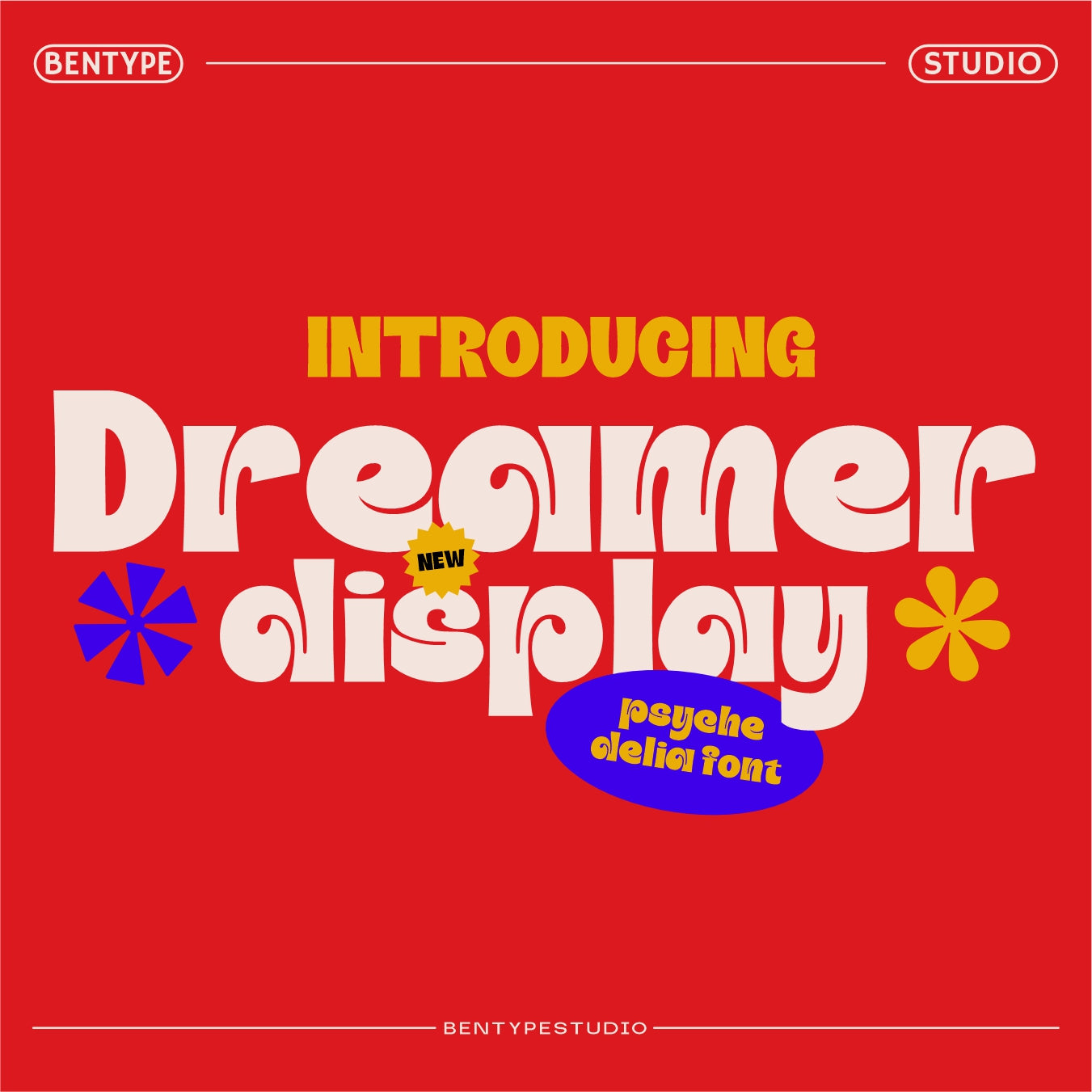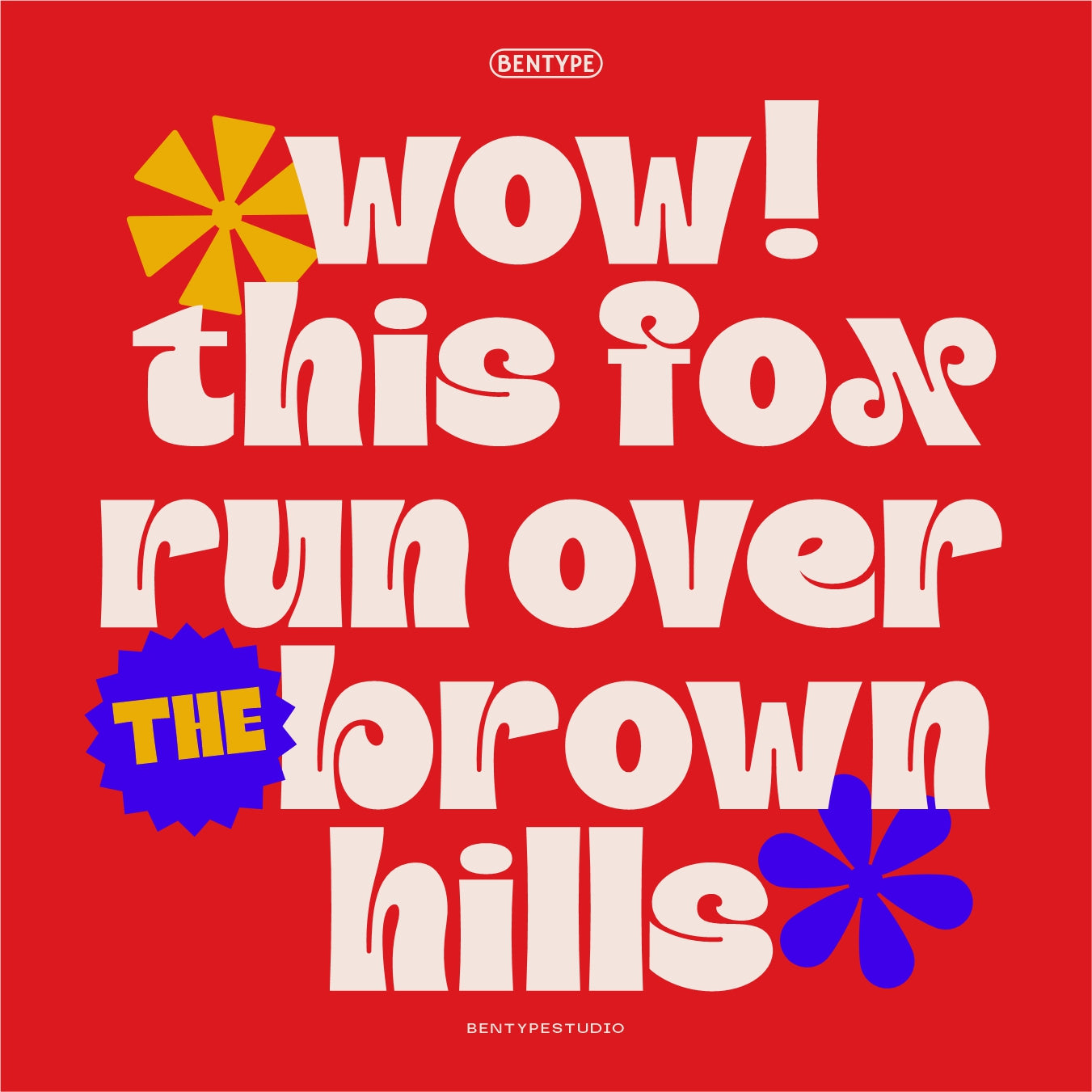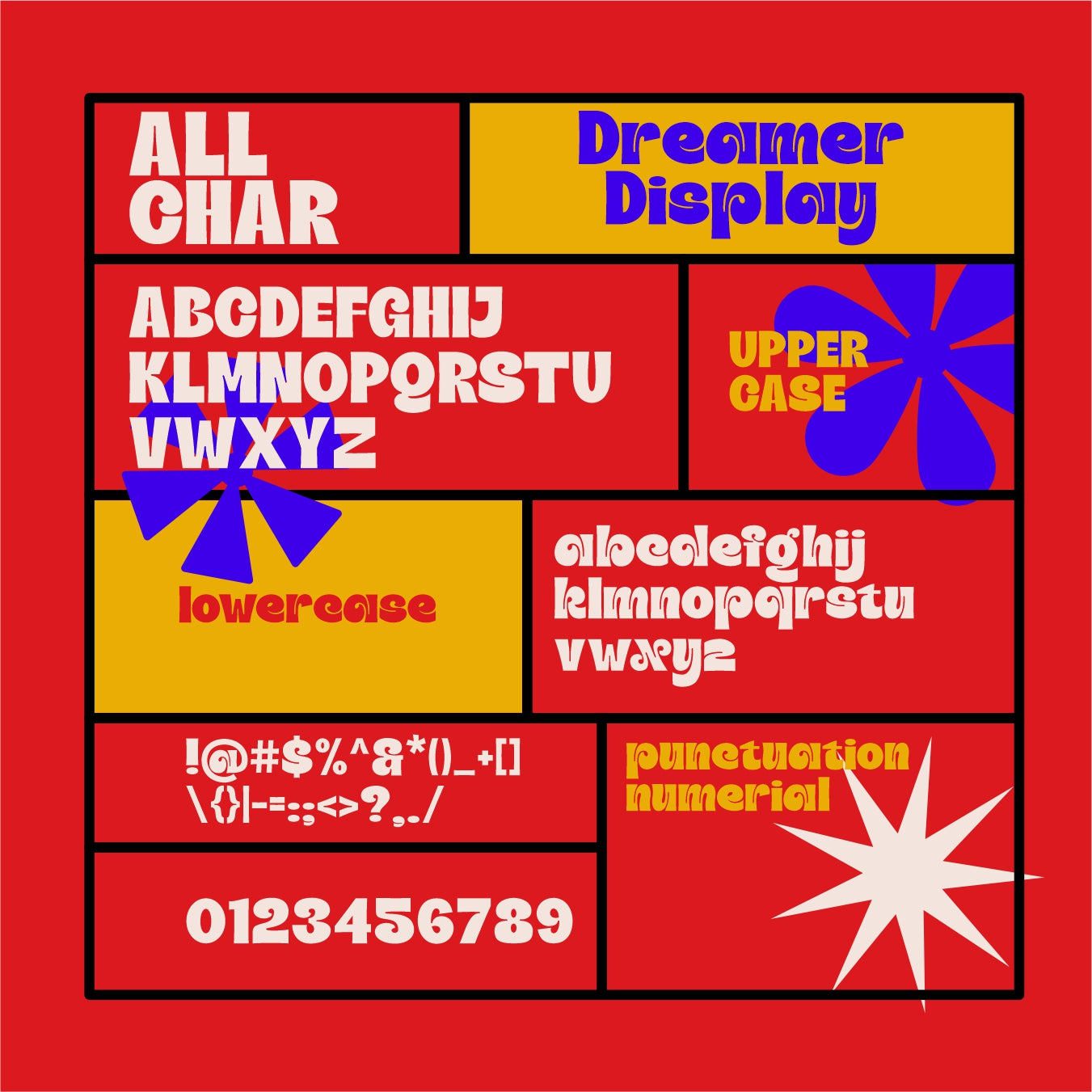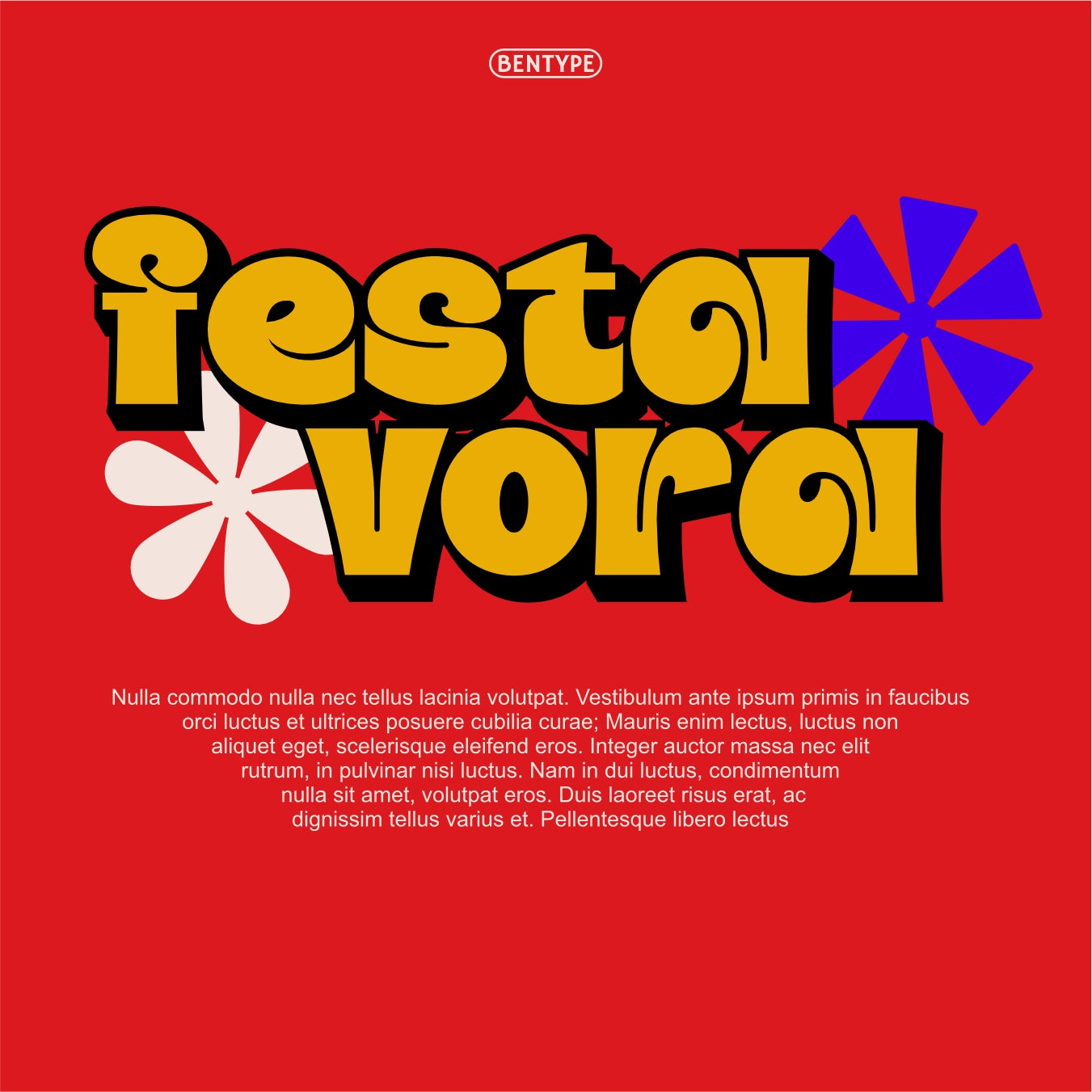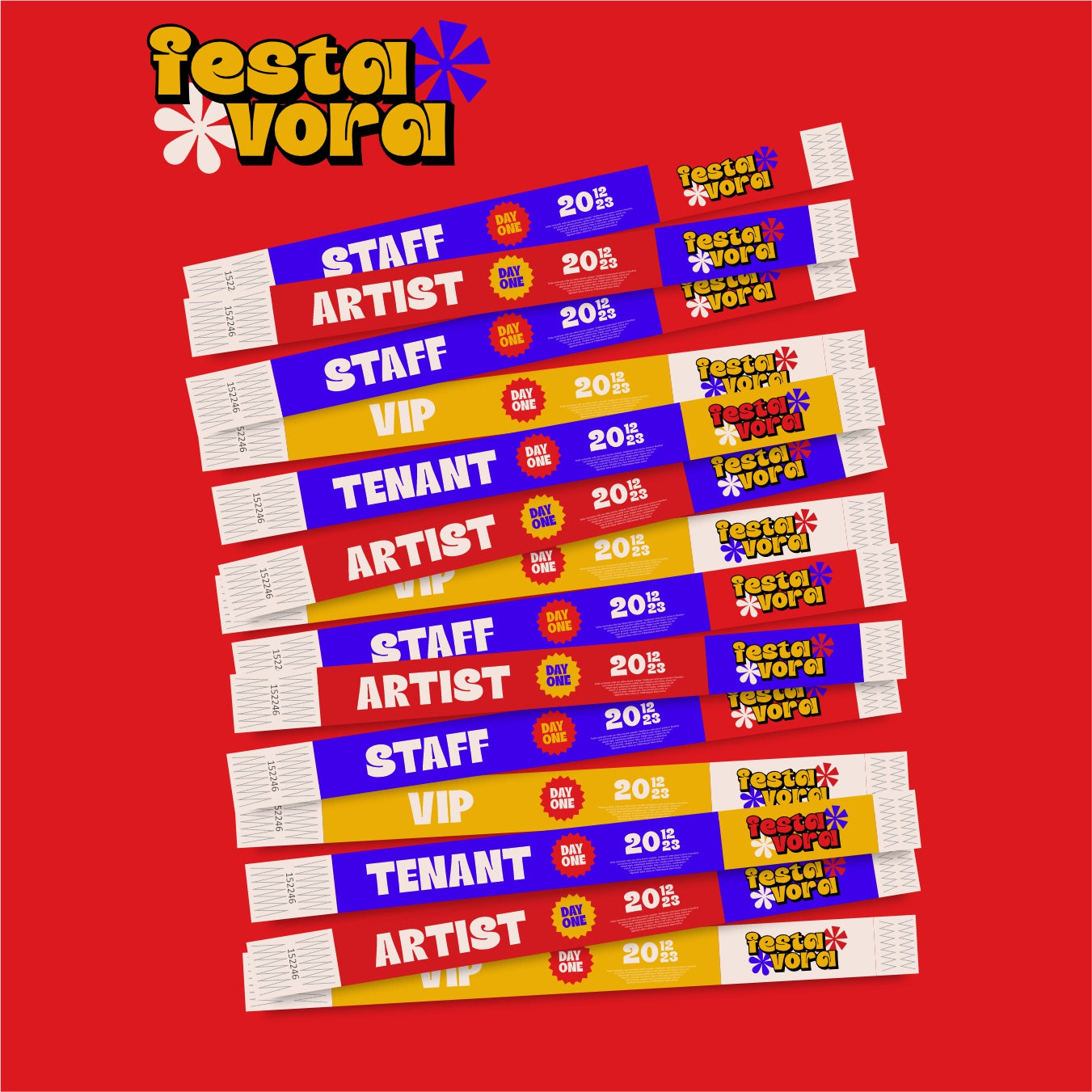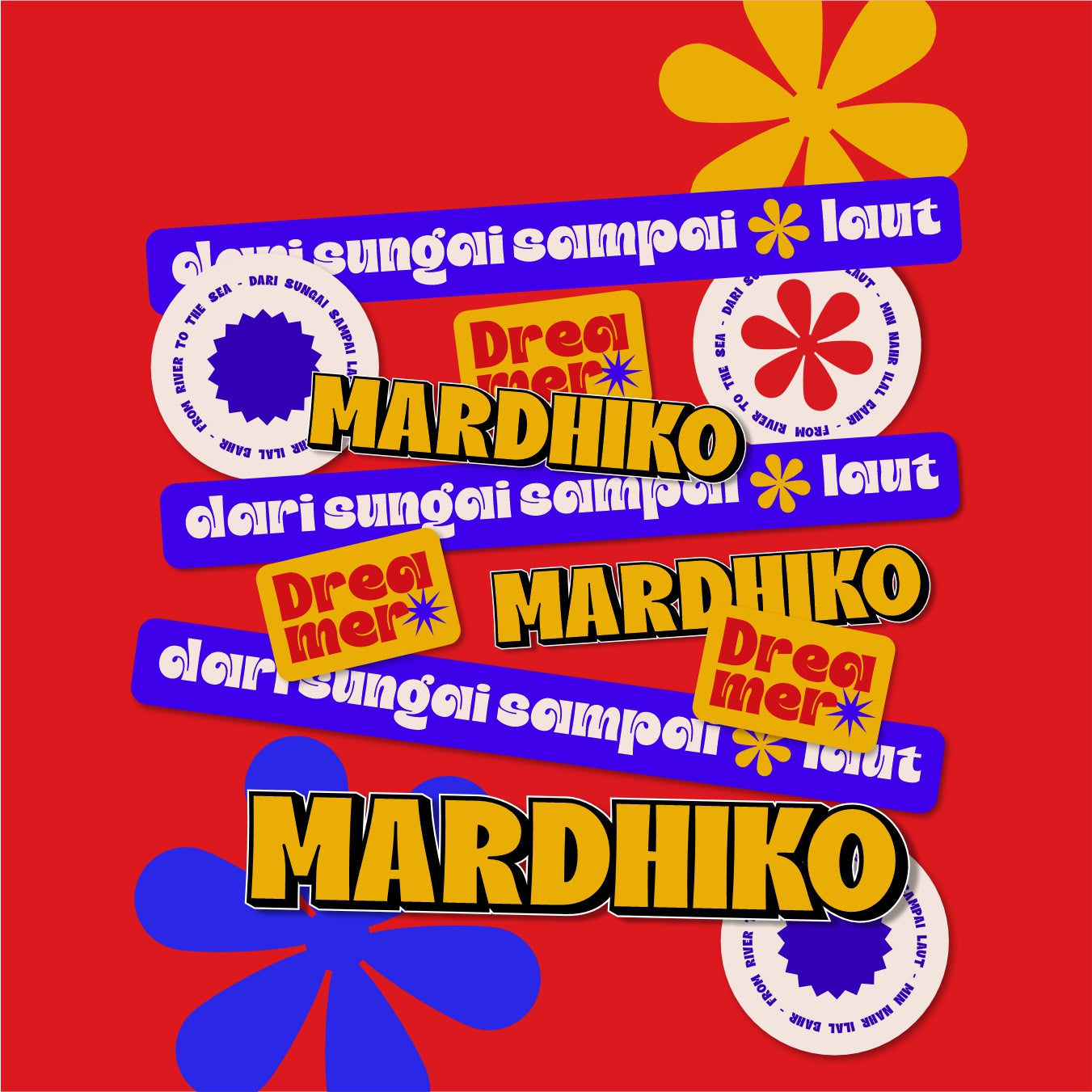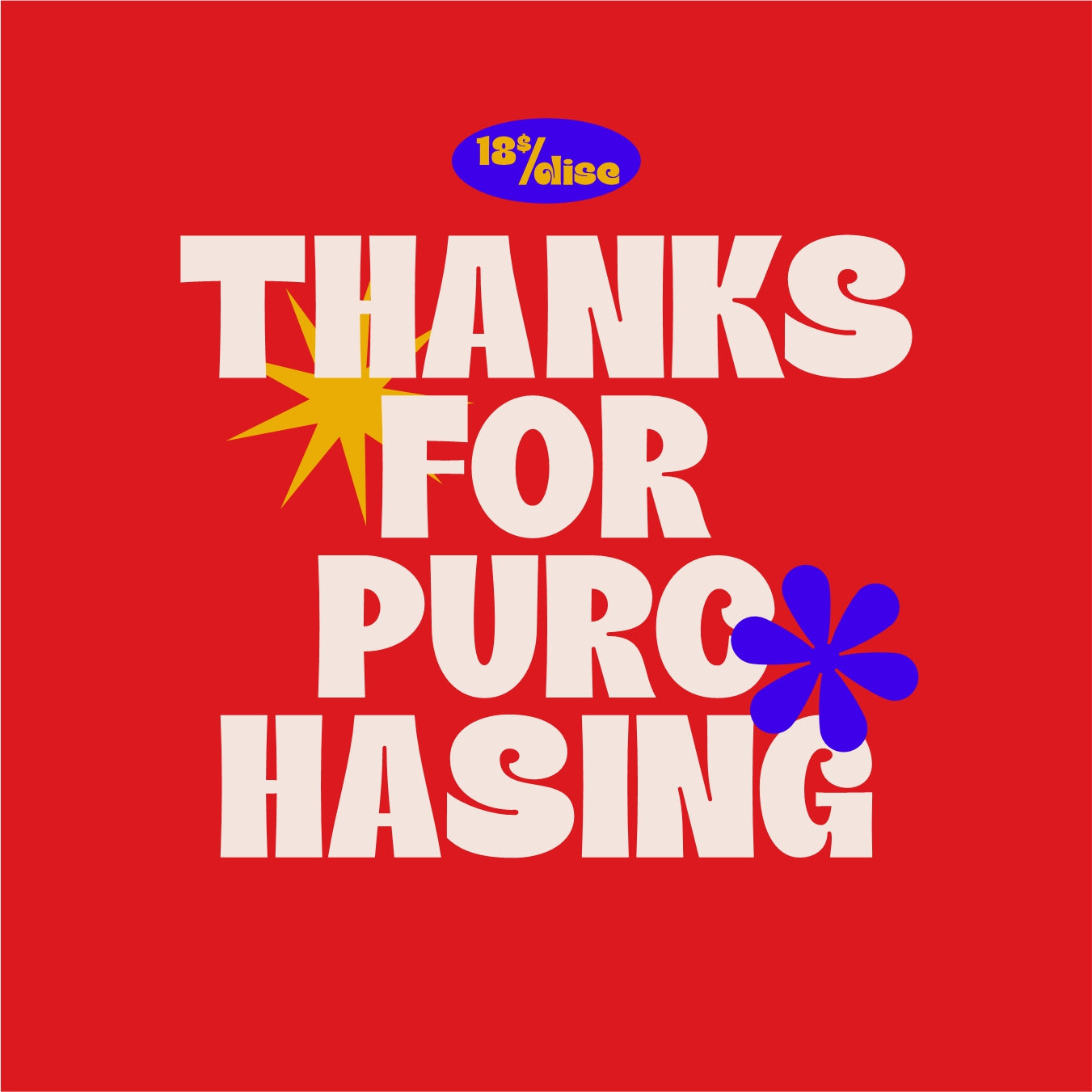
Dreamer - Psychedelia Display Font
Bentype Studio
Dreamer - Psychedelia display fonts are a vivid reflection of the vibrant and mind-bending aesthetics associated with the psychedelic movement of the 1960s and 1970s. These fonts embody a sense of experimentation, free expression, and unconventional design, often inspired by hallucinatory experiences, art, and music of that era. Dreamer - Psychedelia display font can be captivating for artistic and expressive projects, but readability might sometimes be sacrificed for the sake of visual impact. As a result, they are often more suited for display purposes, logos, posters, or artistic endeavors where legibility is not the primary concern.
Dreamer - Psychedelia is a display font inspired by 1960s-70s psychedelic art and design, featuring bold, unconventional letterforms. It prioritizes visual style over readability, categorizing it as a decorative rather than text-oriented typeface.